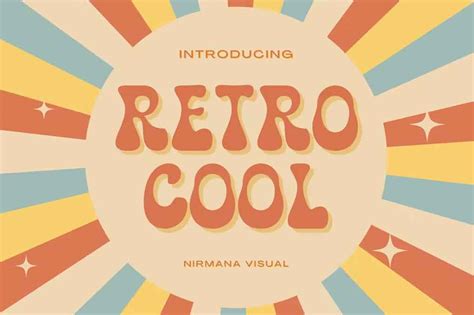
Retro Cool Font. This is a modern, bold and playful display font with retro and groovy style concept. Web retro cool display font.
Web retro cool à € by nirmana visual. Web retro cool display font. This is a modern, bold and playful display font with retro and groovy style concept. Web retro cool à € by nirmana visual. 152,920 downloads (137 yesterday) 2 comments free for.